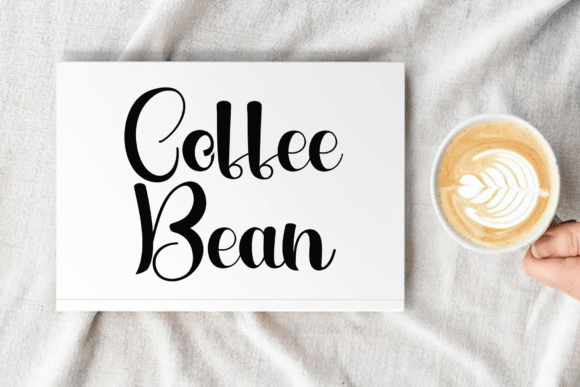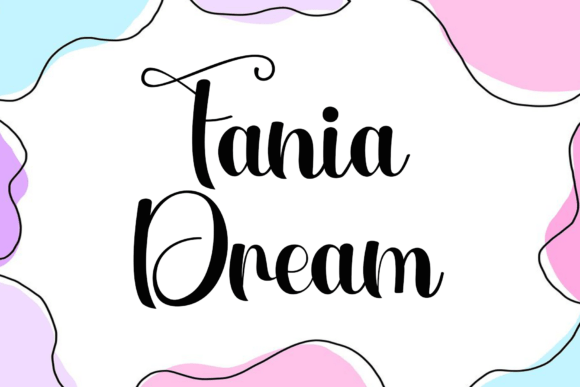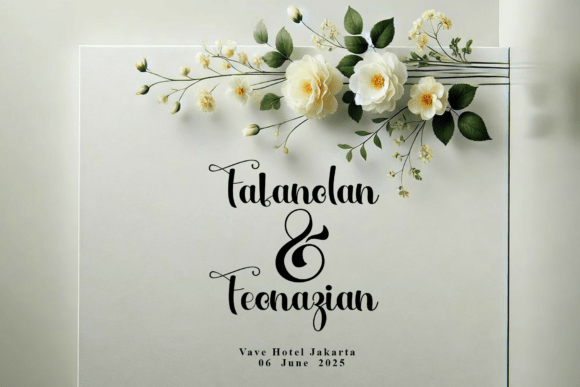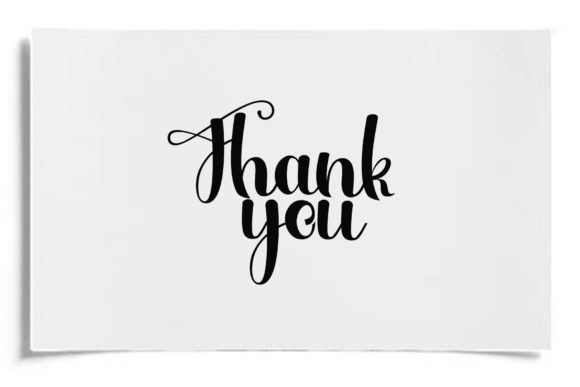
Introducing Good Dream Font: Elevate Your Designs with Timeless Elegance
In the world of typography, a good font can make all the difference in transforming a design from ordinary to extraordinary. For designers and crafters seeking a stylish and contemporary handwritten font, Good Dream Font is an excellent choice. Inspired by timeless classic calligraphy, Good Dream Font brings a touch of elegance and sophistication to any project.
What is Good Dream Font?
Good Dream Font is a beautifully crafted handwritten font that exudes a sense of refinement and poise. With its balanced and varied letterforms, this font is designed to add a touch of luxury to your designs. Whether you’re working on a branding project, packaging, or marketing materials, Good Dream Font is the perfect choice for those seeking a high-end look.
Key Features of Good Dream Font
- Contemporary Atmosphere: Good Dream Font boasts a modern and fresh feel, making it perfect for designs that require a stylish and up-to-date look.
- Impeccable Form: Each letterform has been carefully crafted to ensure impeccable form and balance, resulting in a font that is both visually appealing and highly legible.
- Timeless Classic Inspiration: Inspired by classic calligraphy, Good Dream Font brings a sense of tradition and heritage to your designs, while still feeling modern and fresh.
- Balanced and Varied: The font features a range of letterforms, ensuring that your designs will have a natural and organic feel.
Use Cases for Good Dream Font
Good Dream Font is versatile and can be used in a variety of design projects, including:
- Branding and Logo Design: Create a lasting impression with a custom logo or brand identity that showcases Good Dream Font’s elegant and sophisticated style.
- Packaging Design: Add a touch of luxury to your product packaging with Good Dream Font, perfect for high-end products or special editions.
- Marketing Materials: Elevate your marketing materials, such as brochures, flyers, or social media graphics, with Good Dream Font’s stylish and contemporary look.
- Stationery and Invitations: Create beautiful and elegant stationery, invitations, or greeting cards that showcase Good Dream Font’s timeless charm.
Why Choose Good Dream Font?
With so many fonts available, why choose Good Dream Font? Here are just a few reasons:
- Unique and Distinctive: Good Dream Font stands out from the crowd, offering a unique and distinctive style that will set your designs apart.
- Highly Legible: The font’s clear and balanced letterforms ensure that your text is easy to read, making it perfect for body text or headings.
Good Dream Font is a stylish and elegant handwritten font that is perfect for designers and crafters seeking to add a touch of sophistication to their projects. With its contemporary atmosphere, impeccable form, and timeless classic inspiration, Good Dream Font is sure to elevate your designs to the next level. Whether you’re working on branding, packaging, marketing materials, or stationery, Good Dream Font is an excellent choice.